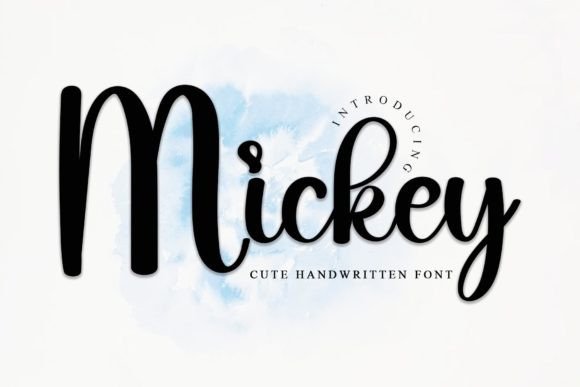
Introducing Mickey Font, the epitome of elegance and sophistication in the world of typography. Crafted with utmost precision by the talented artists at Inermedia STUDIO, this script font will take your designs to new heights of creativity and allure.
Mickey Font is more than just a collection of letters; it is a masterpiece that brings your words to life. Its contemporary atmosphere and flawless form are inspired by the timeless beauty of classic calligraphy. With every stroke, Mickey Font exudes a sense of grace and refinement that captivates the eyes of all who behold it.
Whether you are designing invitations, logos, or social media posts, Mickey Font is the perfect choice to make your projects truly stand out. Its balanced and varied characters effortlessly enhance the beauty of any composition, adding a touch of sophistication and charm. Let your words dance across the page with the fluidity and elegance that only Mickey Font can provide.
But Mickey Font is not just aesthetically pleasing; it is also a powerful tool to convey emotions and create connections. With its unique style, this font evokes a sense of nostalgia and warmth, instantly transporting your audience to a world of cherished memories and joyful moments. It is the perfect companion for heartfelt messages, bringing them to life with its authenticity and sincerity.
Don't settle for ordinary when you can have extraordinary. Mickey Font is the key to unlocking your creative potential and making a lasting impression on your audience. Its versatility knows no bounds, seamlessly blending with any design concept or theme. From whimsical to sophisticated, Mickey Font adapts effortlessly, ensuring your message is conveyed with the utmost impact.